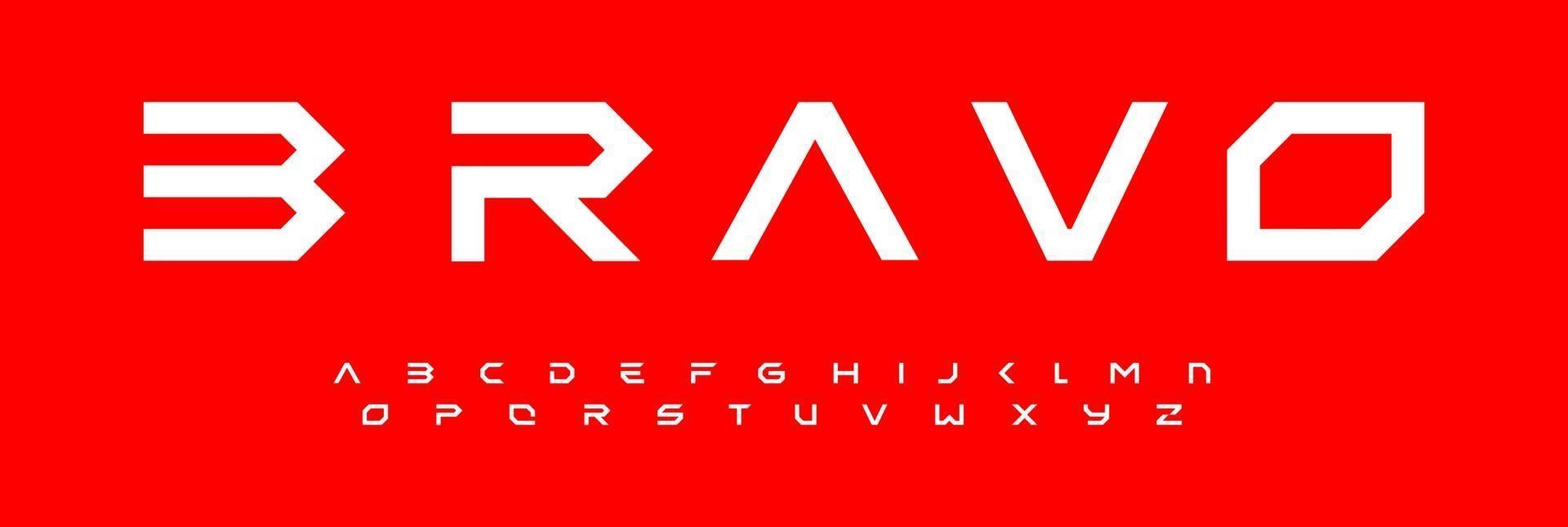
Modern geometric alphabet, modular font design, extended futuristic letters. Typeset for branding, headline, title, logo. Minimal design of technology, space, science, gui, ui, sci-fi cinema cover. Pro Vector